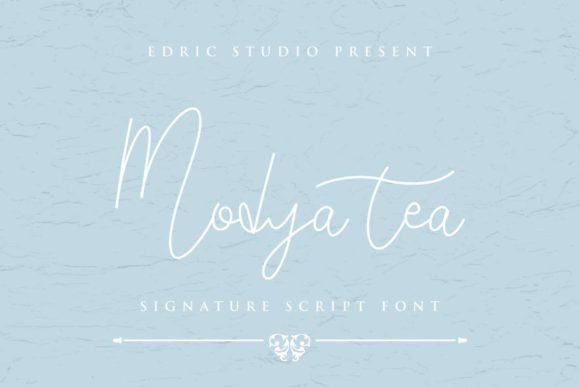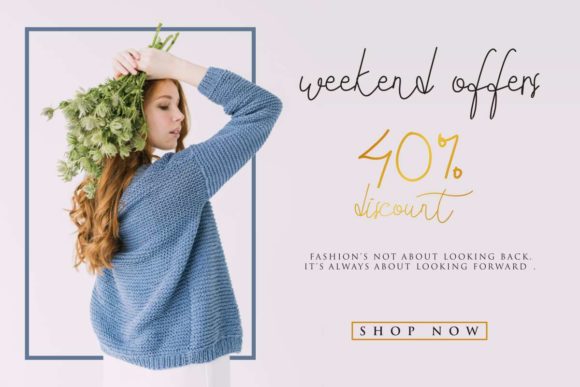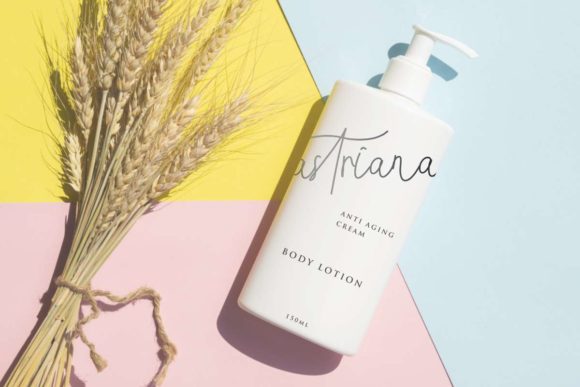
Introduction to Modya Tea Font
Modya Tea is an elegant and flowing handwritten font.
It is PUA encoded which means you can access all of the glyphs and swashes with ease It features a varying baseline, smooth lines, gorgeous glyphs and stunning alternates.
Key Features of Modya Tea Font
Why Choose Modya Tea Font?